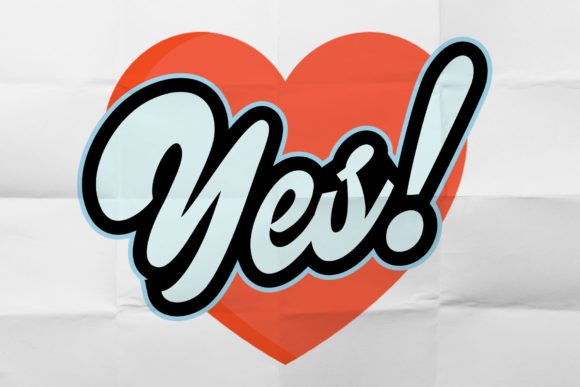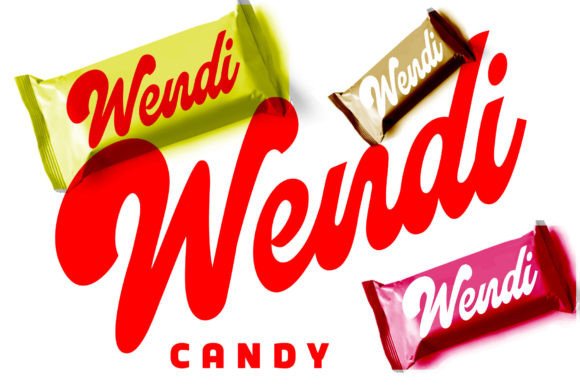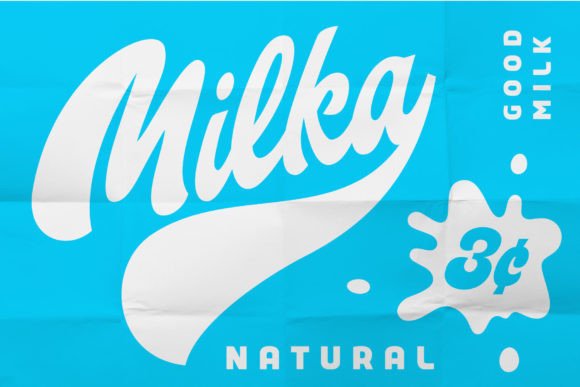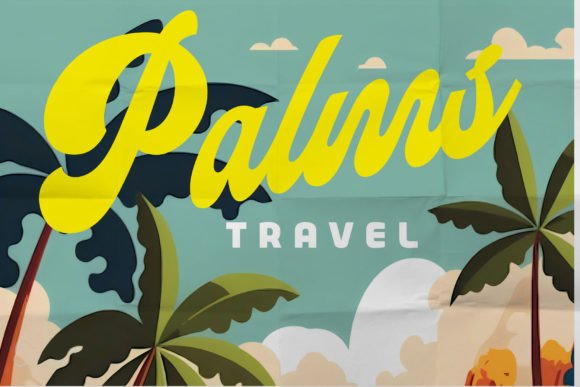
Introduction to Slash Mash Font
Have you ever stumbled upon a font that sparks creativity and makes you want to unleash your inner artist? For designers, finding the perfect font can be a game-changer. It’s like stumbling upon a hidden treasure that adds a touch of magic to your project. That’s exactly what happens when you discover the Slash Mash Font – a bold, funny, and retro-inspired script font that’s sure to bring a smile to your face.
As a valuable design resource, the Slash Mash Font is an excellent choice for projects where you want to make a bold statement and inject a touch of playful nostalgia. Whether you’re working on a creative project, looking for a free download, or seeking a high-quality font with a transparent background, the Slash Mash Font has got you covered.
Key Features of Slash Mash Font
- Transparent background for seamless integration with any design
- Unique, bold, and modern design style perfect for making a statement
- High-resolution design (scalable up to 300 DPI) for crisp and clear display
- Perfect for use in logos, branding, and other visual identity elements
- Comes in multiple styles and weights for added versatility
Honest Review: Slash Mash Font
I recently came across the Slash Mash Font, and I was excited to give it a try in my next creative project. The font is a free download, which is always a bonus for designers on a budget. Upon closer inspection, I was impressed by the high quality of the font, which has a unique and modern feel to it.
One of the things that works well with the Slash Mash Font is its versatility. The font is available in a range of styles, from bold and playful to thin and elegant, making it a great resource for designers who need to adapt their font to different design contexts. Additionally, the font’s transparent background makes it easy to customize and pair with other design elements.
- Unique and modern design
- High quality and crisp rendering
- Available in a range of styles
- May not be suitable for all design contexts
- Some users may find the font’s style too bold or overpowering
- Not as extensive a character set as some other fonts
- ⚠️ Limited support for certain languages
Overall, I was impressed by the Slash Mash Font and its potential to elevate my next creative project. While it may have some limitations, the font’s unique design and versatility make it a valuable resource for designers looking for a high-quality, free font.
Getting the Most Out of the Slash Mash Font
To get the most out of the Slash Mash Font, use it in combination with other design elements to create unique and eye-catching designs. Experiment with different font sizes, colors, and arrangements to create a visually appealing design.
The Slash Mash Font is perfect for use in social media graphics, flyers, posters, and other marketing materials. Its high quality and transparent background make it ideal for creating designs that stand out from the crowd.